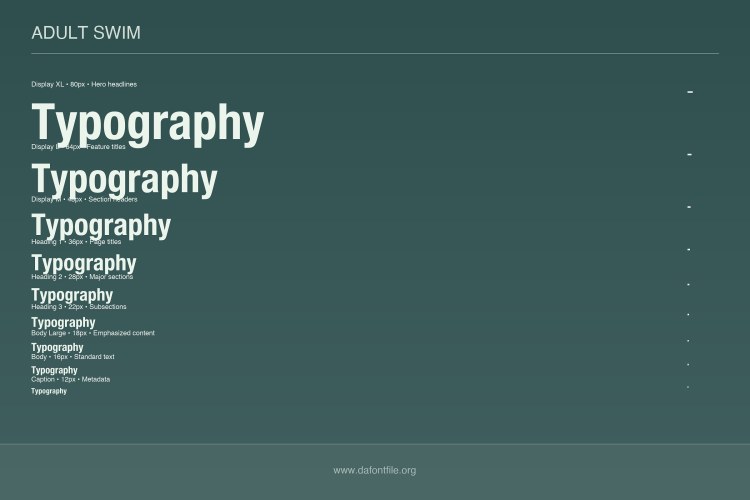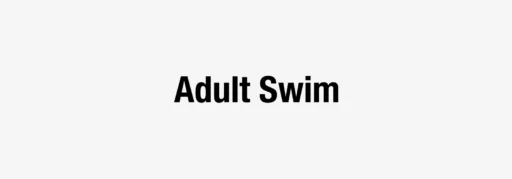
Adult Swim Font
Adult Swim takes its bold sans-serif style from the logo of the famous TV network. Its sharp lines and strong shapes create a modern and edgy look in text. Designers choose this font when they want their work to stand out with confidence and impact.
Where Adult Swim Font works best
Adult Swim Font keeps its shape at 14 and 16 pixels, which is where interface text actually lives. Numbers and capitals stay distinguishable in tables.
Presentations are read at a distance; a clean sans with a strong bold is the safest hierarchy you can build in a hurry.
Simple letterforms survive angles, glare and movement, so Adult Swim Font suits door signs, menus boards and exhibition panels.
What kind of work does Adult Swim Font suit?
It sits in the Sans Serif Fonts group and reads as bold, branding, modern, sans serif. That makes it a candidate wherever those qualities help: headings, packaging, social graphics and brand work. Set it at the size you plan to use before deciding.